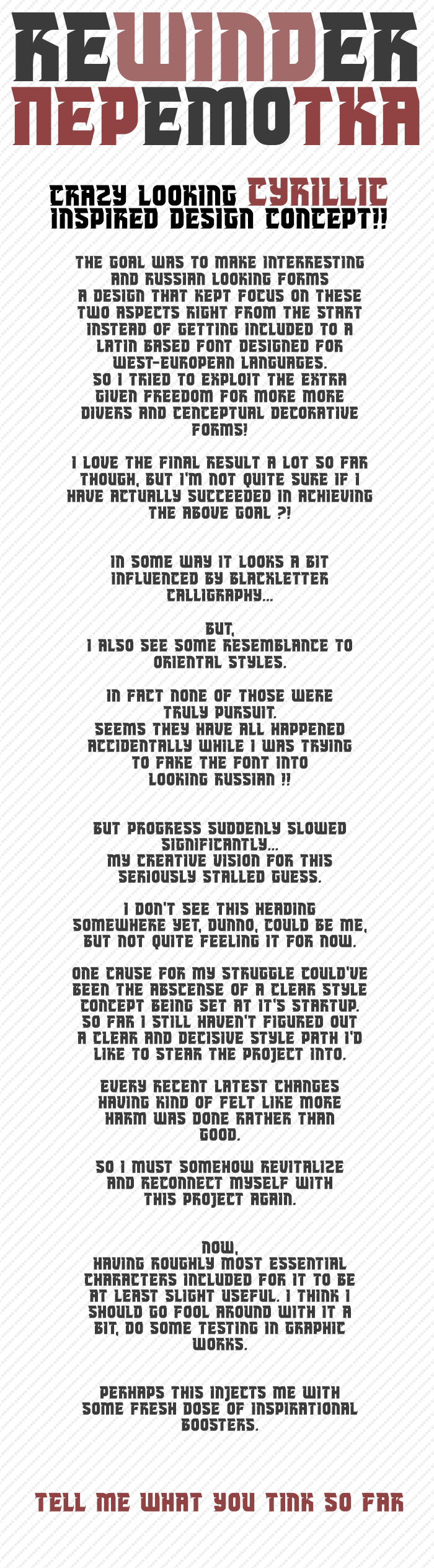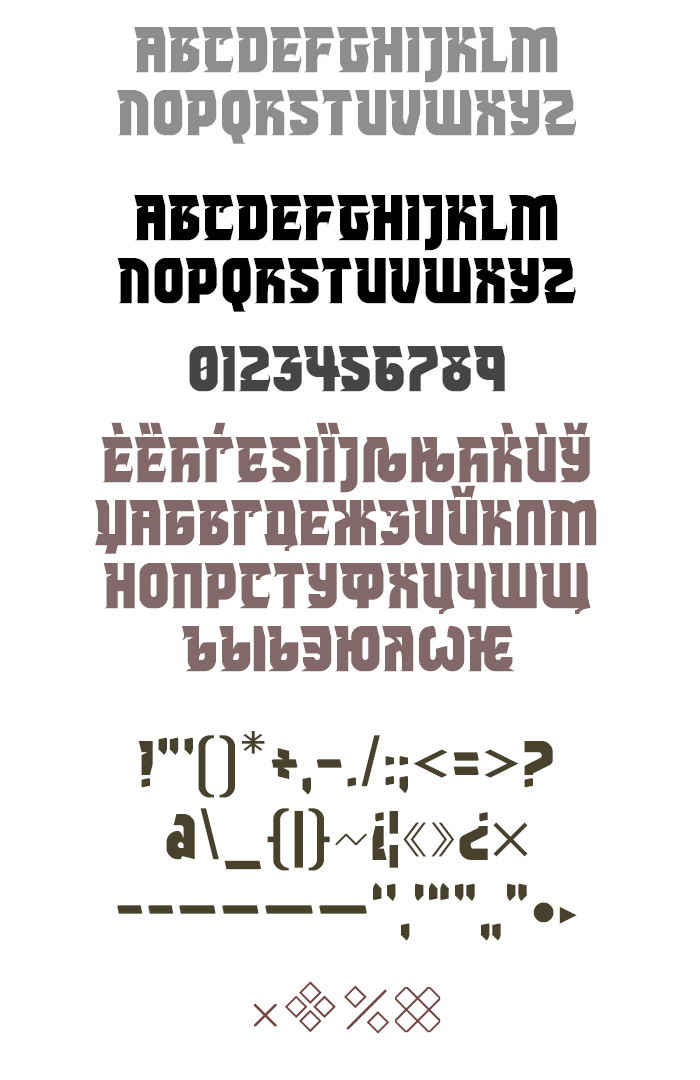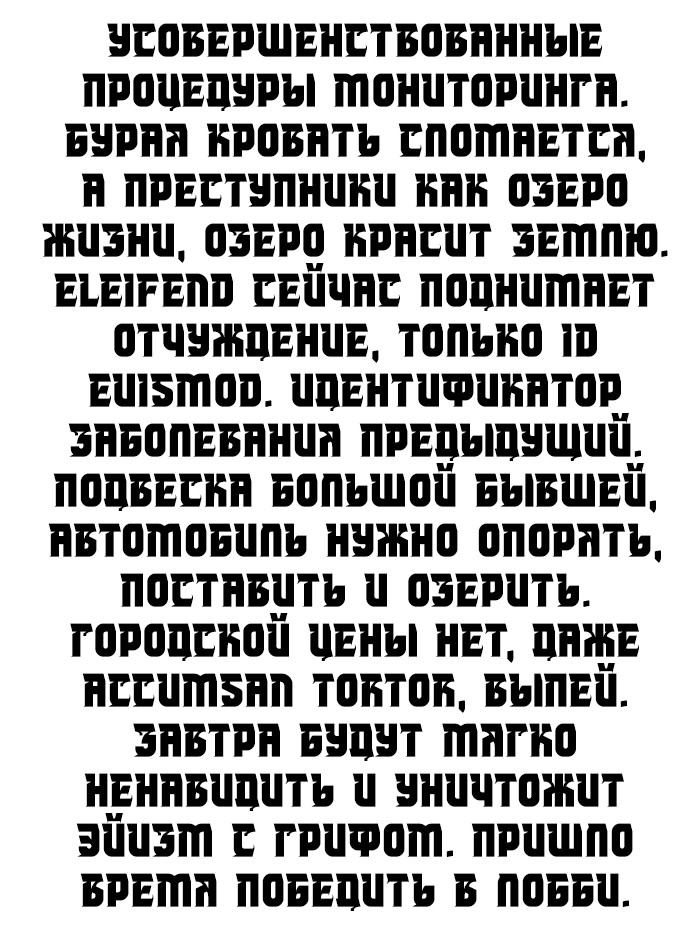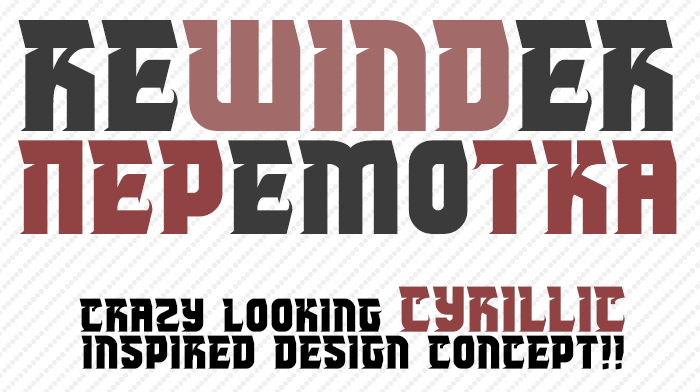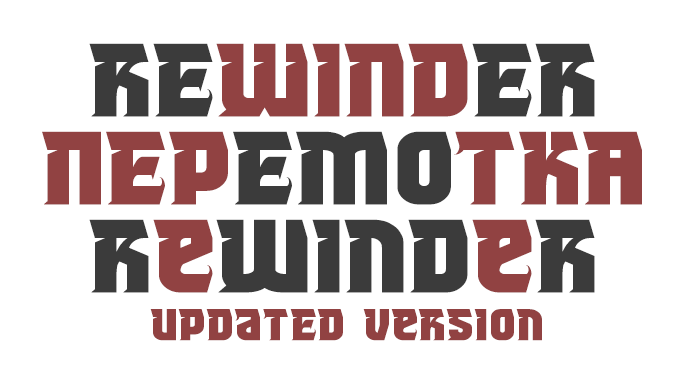
• REWINDER - A bold and decorative "I don't have a clue" style font.
Alternative lowercase versions for (a, c, e, g, j, m, n, o, q, s, u, v, w, y, z)
Usually I design fonts from a general concept I have in mind and start with the Latin alphabet first since I am most familiar with these characters. Then when I have completed these I start adding extra language support. letting everything evolve from there on out into the other languages such as Cyrillic or Greek. Doing it in this fashion I find myself having the best change of doing a decent job designing characters I am not familiar with the right way and in line with the design parameters.
This time I starten designing the Cyrillic alphabet first, trying not to think about the Latin set design at all. I did this in an attempt to have a neutral mindset that wasn't influenced in doing it a certain way.
And I must admit, this was the best and most comfi time I ever did a Cyrillic set. I experienced a sense of having a lot more freedom for creative output.
The result became this cool looking "hell knows" what kind of style letterforms. I have no clue if I actually did a decent and accurate job at the Cyrillic set, and I'm not sure where to go from here on out either.
I hope you like it so far
Congrats, pal! Has my zlava served as an inspiration in this creation?
It's clear that we drink from common sources.
@elmoyenique: Nope it has not, and that we drink from common sources is more than obvious :-D
@elmoyenique: It has now... :-P
I stole ur idea for the lowercase 'a, e', I hope you don't mind ♥ !
I have also changed numerous characters with better fitting version, added a couple extra as well.
Well done! ? I like it a lot!
Very cool, especially Cyrillic, but the Л needs to be redone, now it's easy to confuse it with П, usually the left side is more bent (like J). I hope you finish the LC, you can make alternatives to Б Ь Ы in them.
Also, if you want to make full support for the Ukrainian language, you need to add letters Ґ ґ.
This font is awesome. It feels like handwritten text, with a hint of blackletter flavor. I might add to the comments above: the Cyrillic Д also needs some redesign. It is difficult to recognize. 10/10